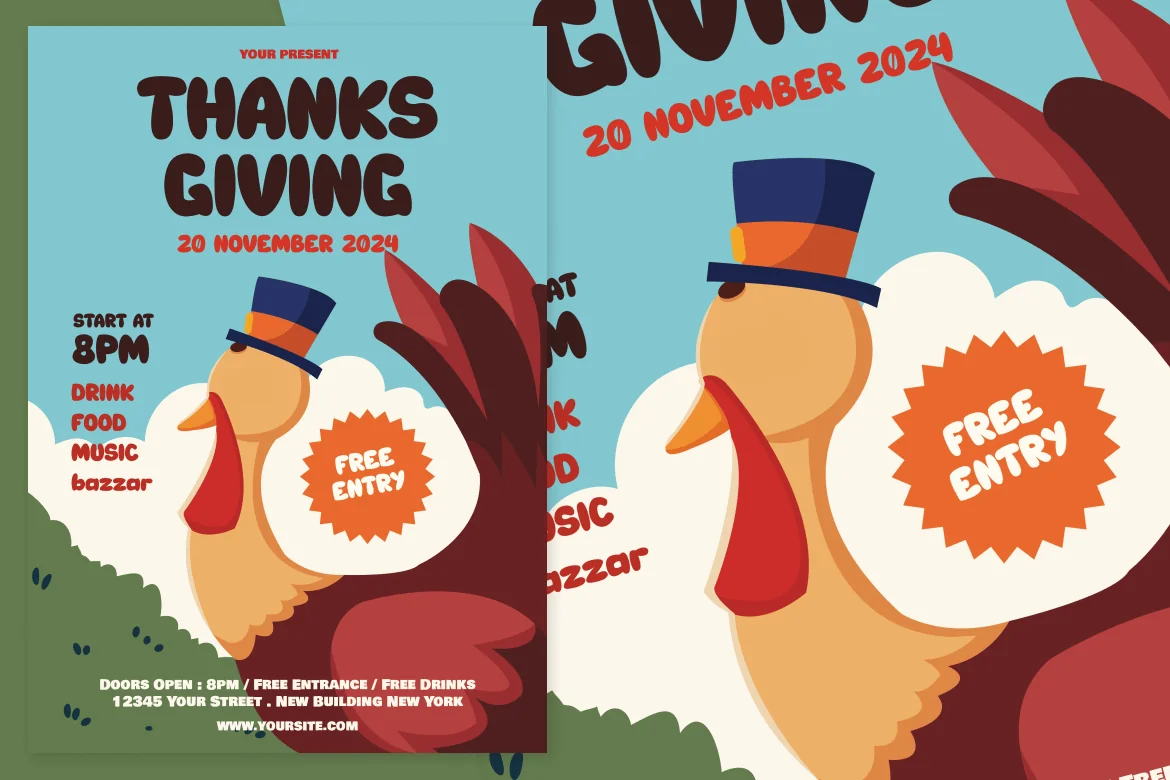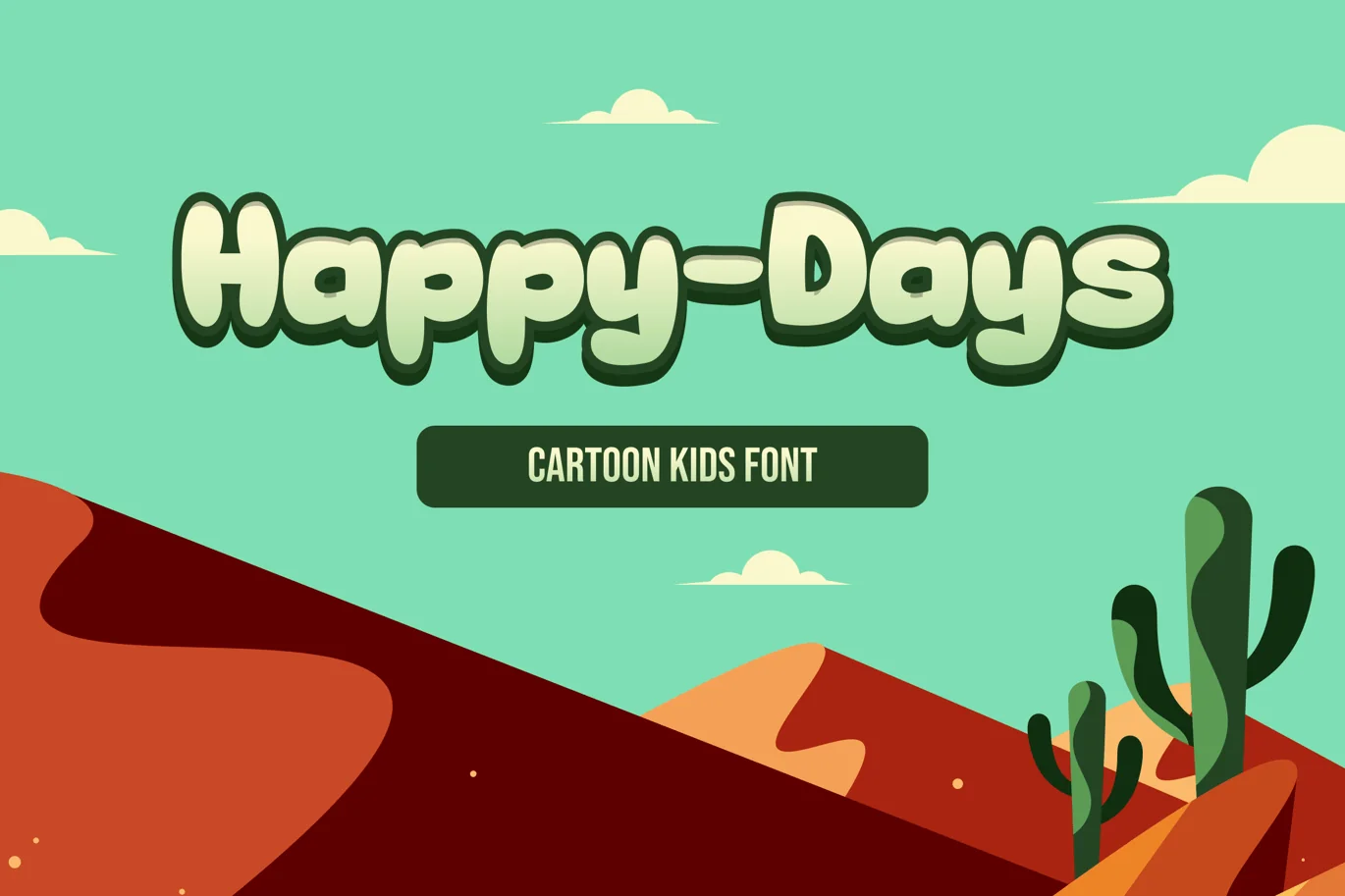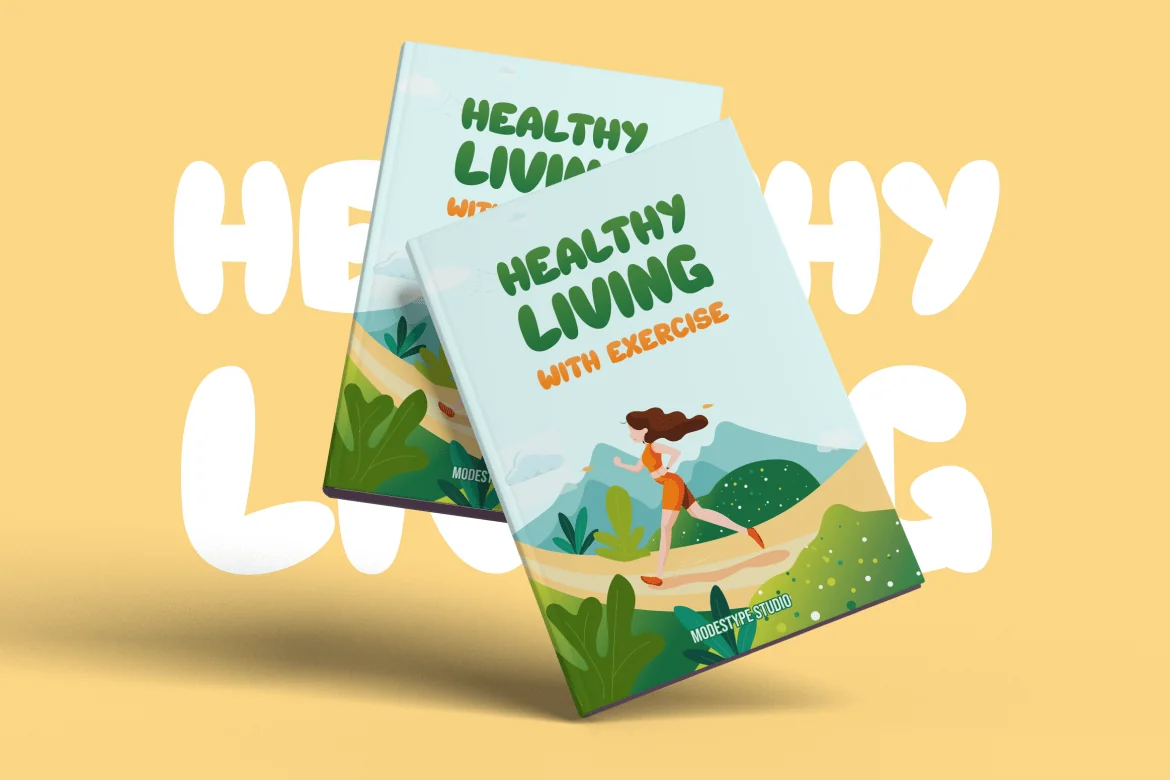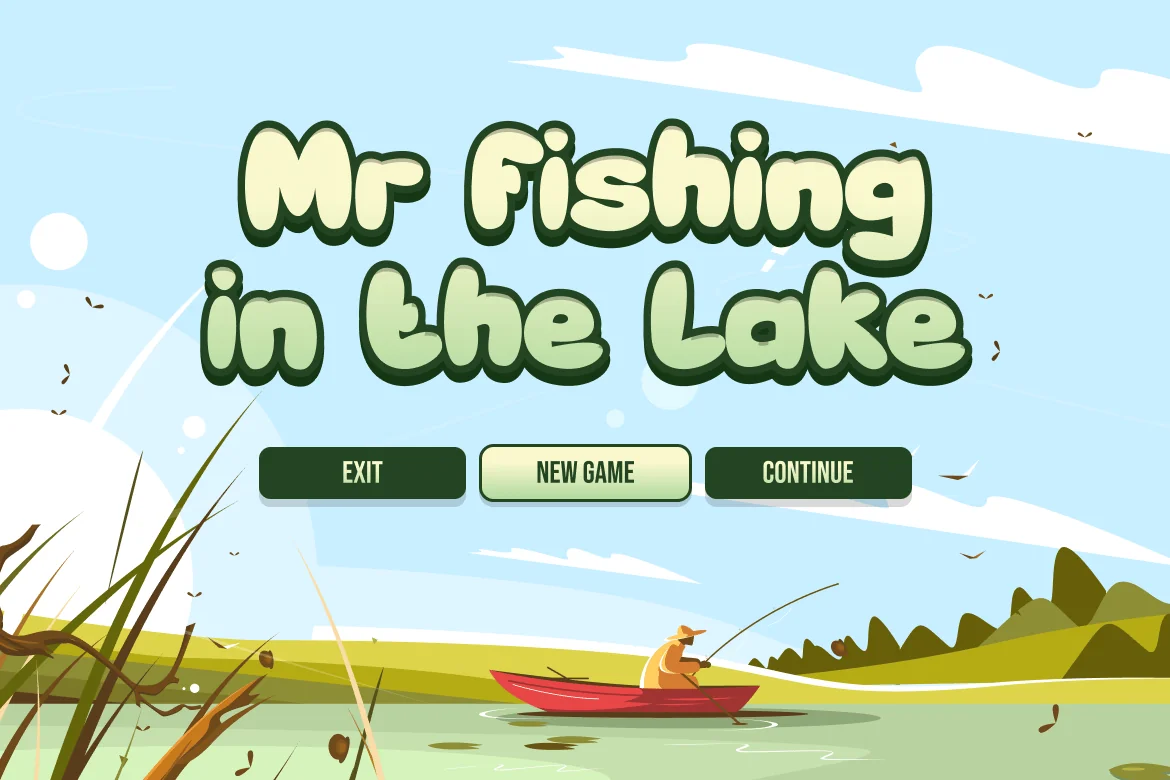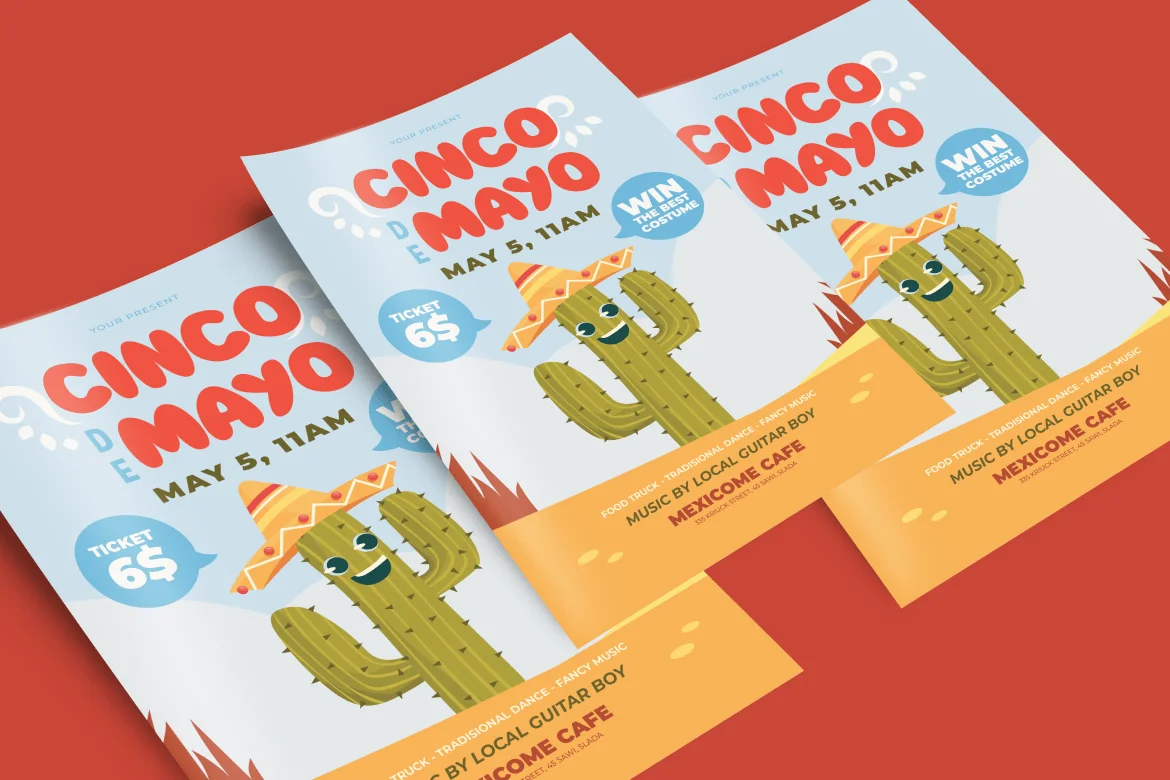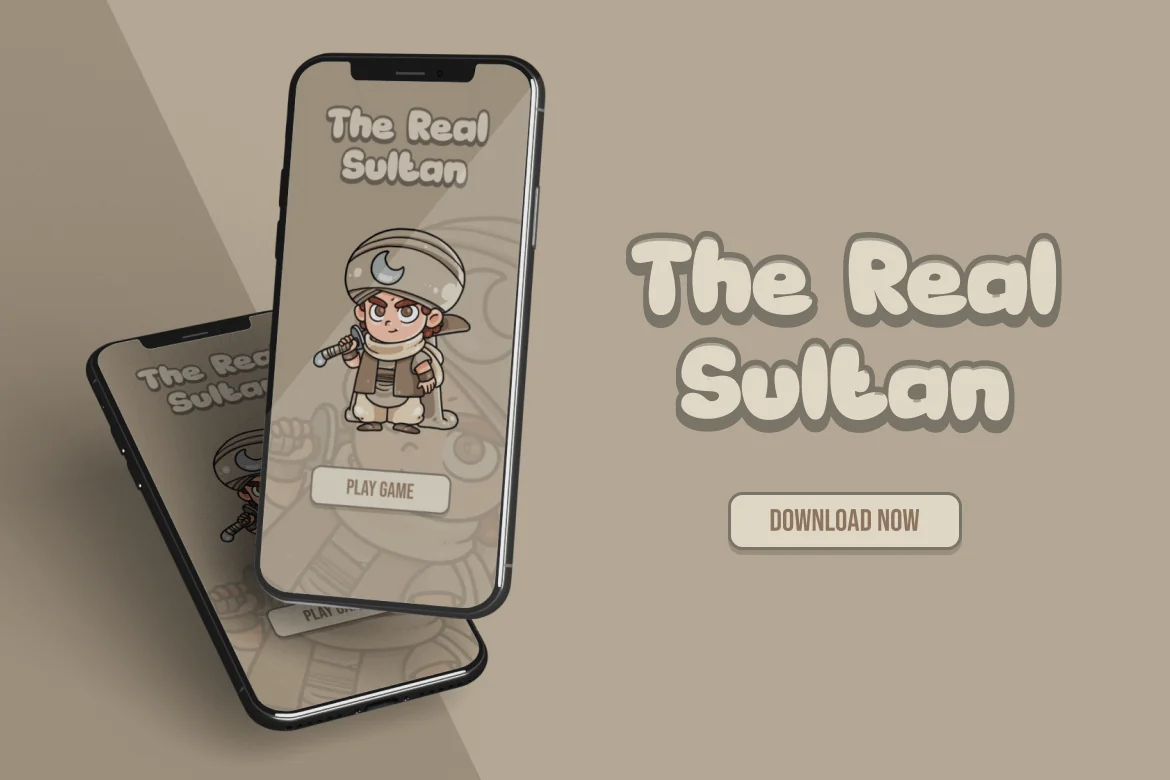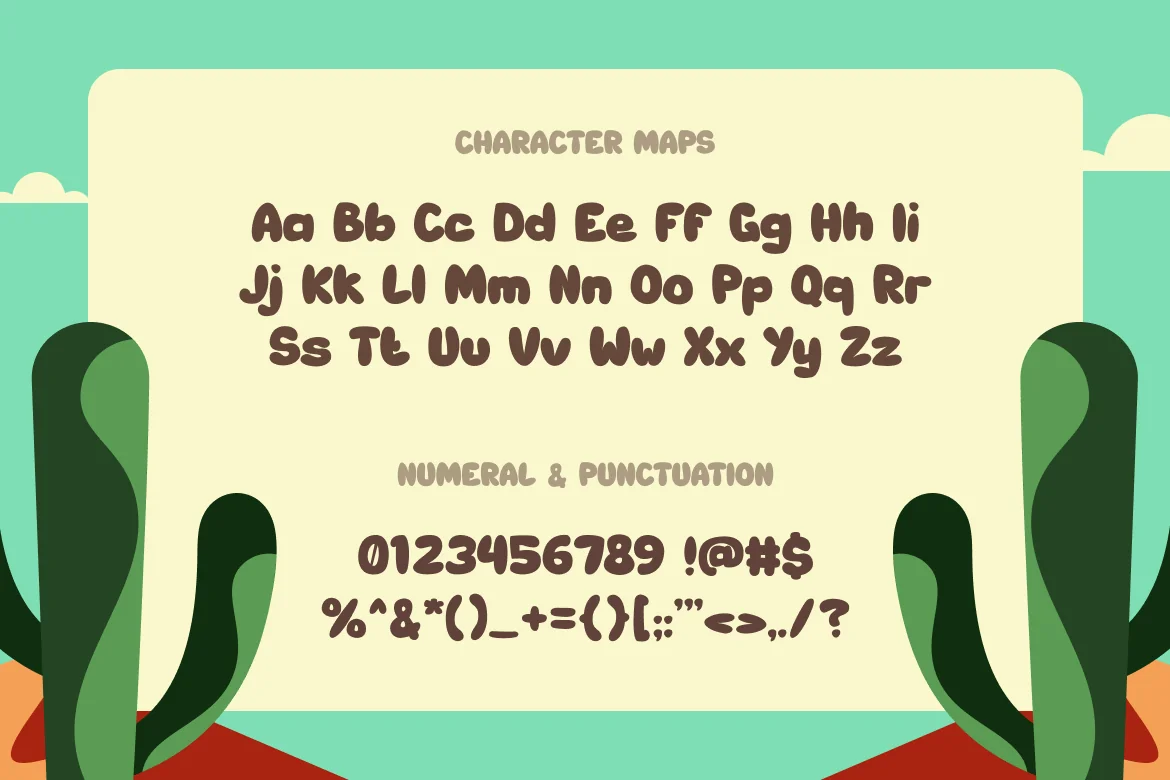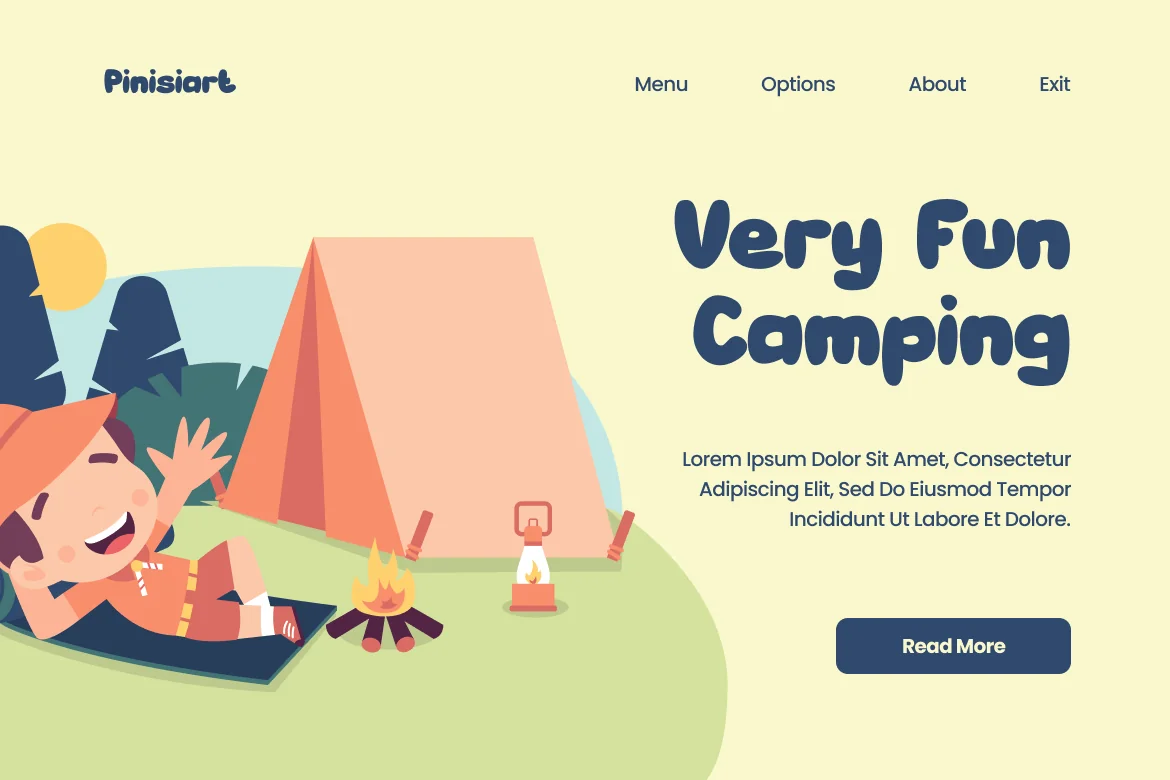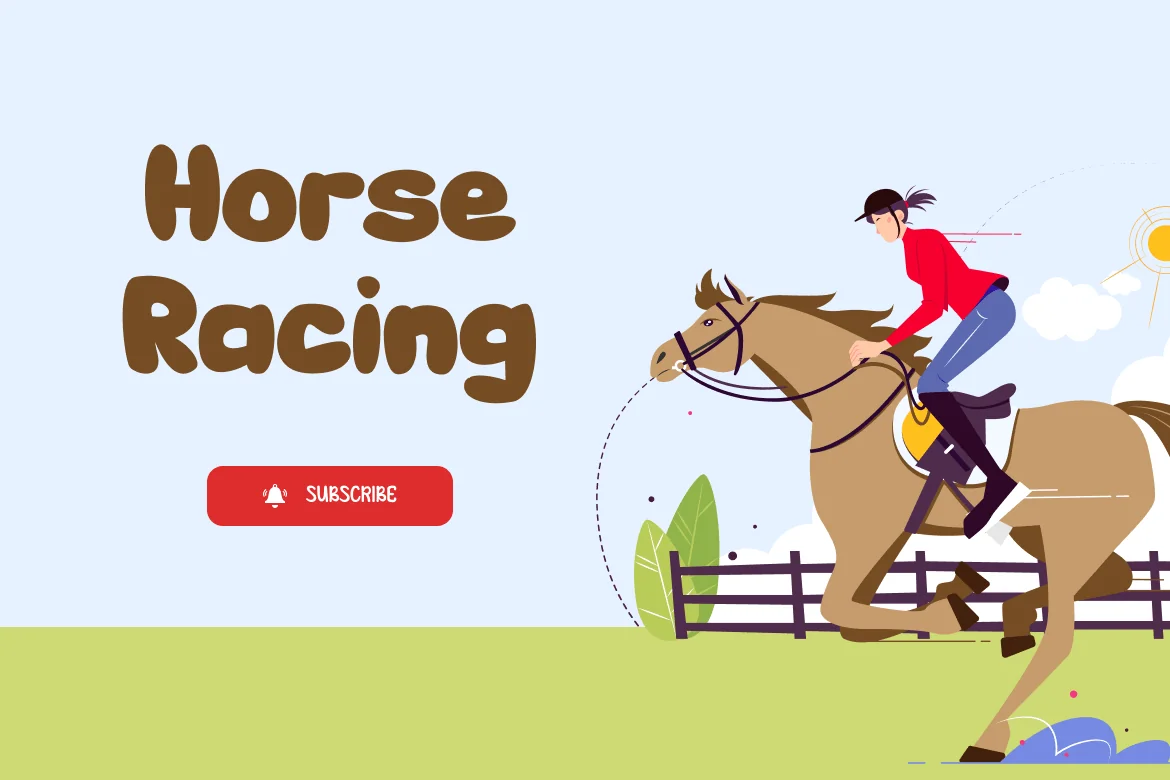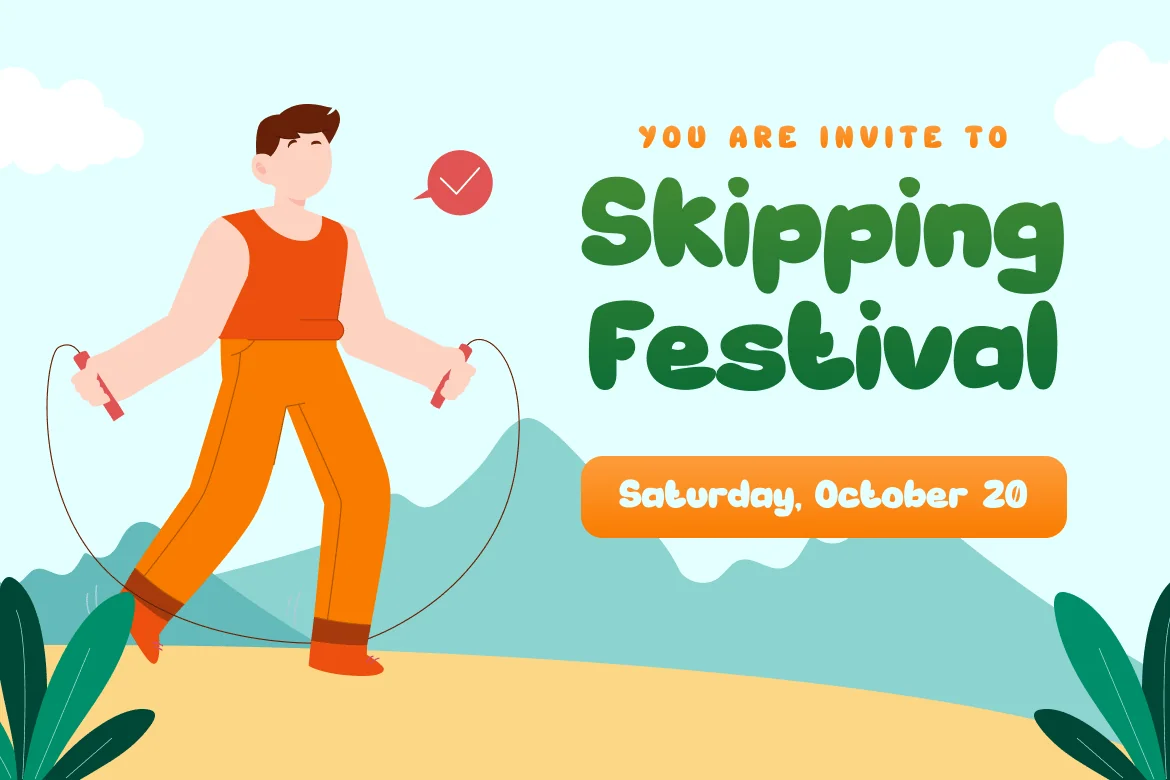
Happy Days – Cartoon Kids Font
Rounded corner and a bit of irregularity on the baseline makes the font more kid friendly. Happy Days will lighten up the kids daily activities.
Suit perfectly for encouraging kids themes books market, birthday poster, stationary, school supplies font, youtube covers, youtube thumbnails, social media page covers and so on…